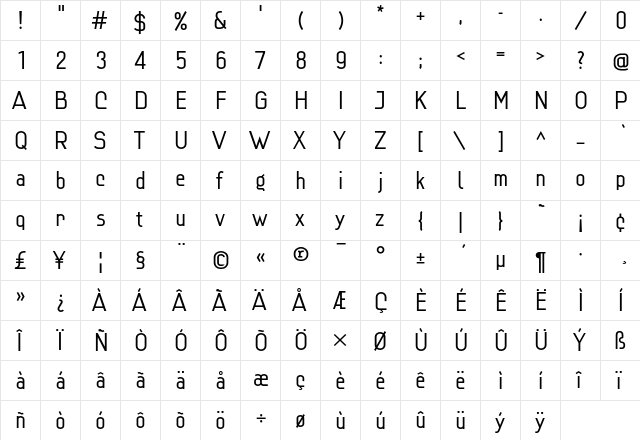
Lindau Light
Light · Markus Waeger, Markus Waeger ·
Design Context for Lindau Typeface
Lindau is a composed and adaptable typeface that performs quietly and consistently across a wide range of design contexts. Its slender proportions lend an understated elegance to any composition.